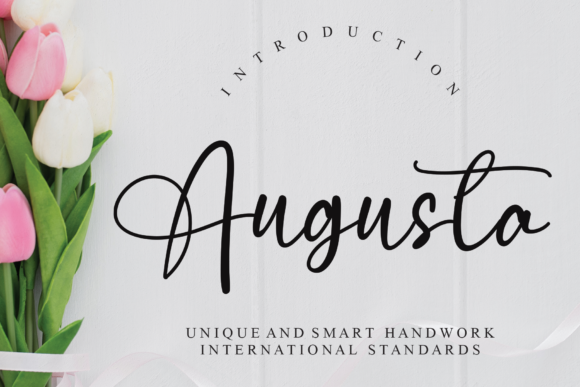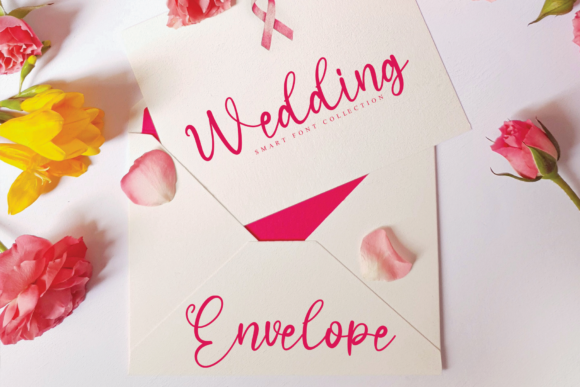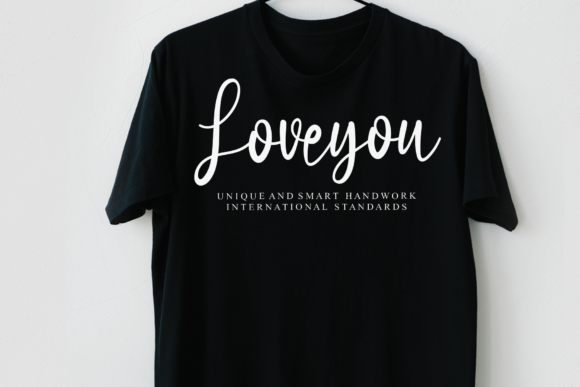
About Augusta Font
Augusta is a delicate and cursive script font. This font is neatly crafted and highly detailed. Whatever the topic, this font will be a wonderful asset to your font library, as it has the potential to enhance any creation.